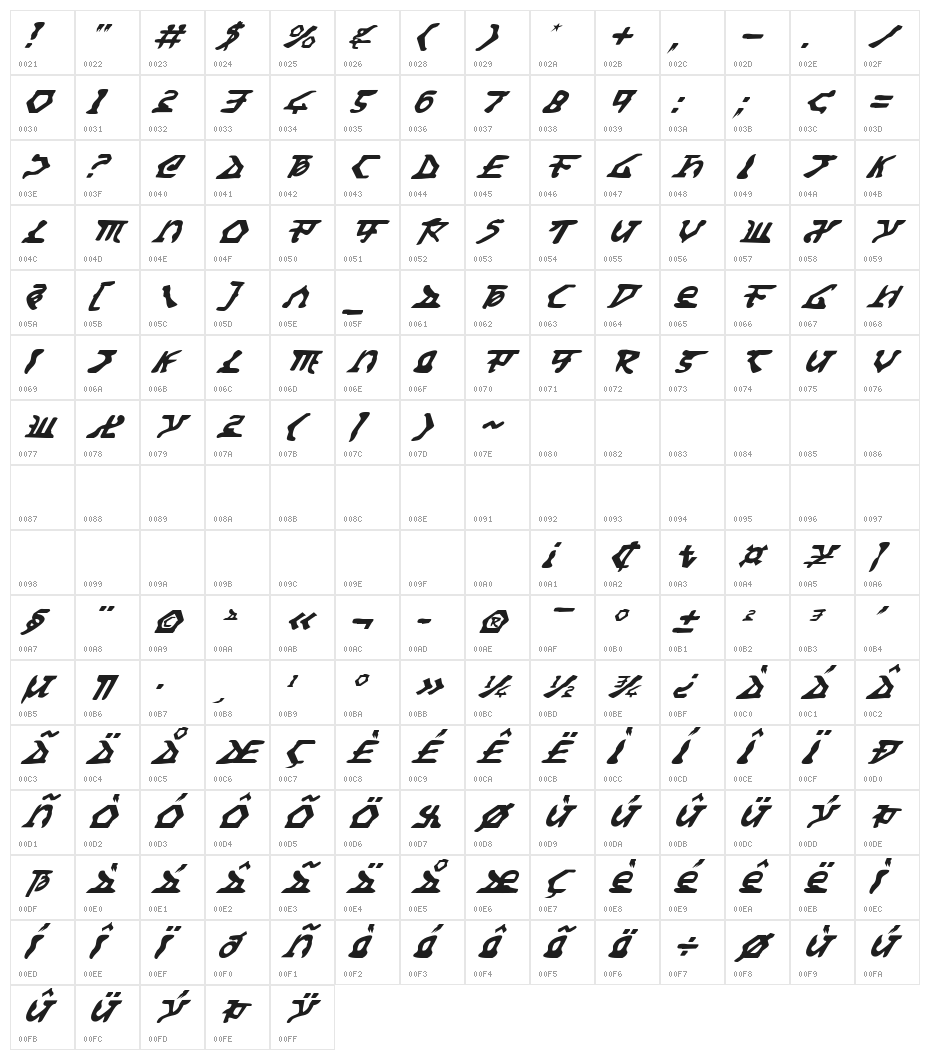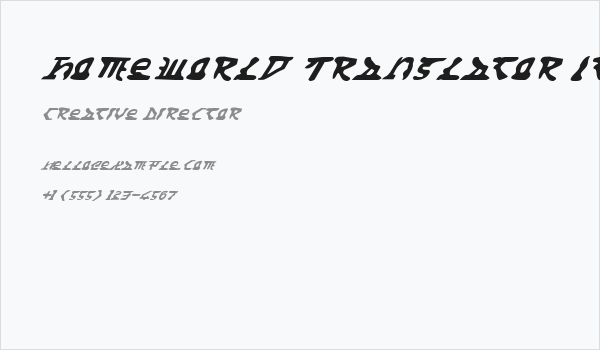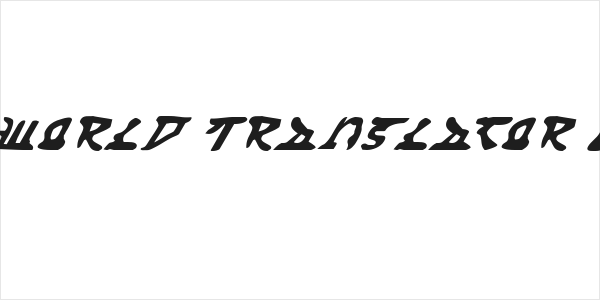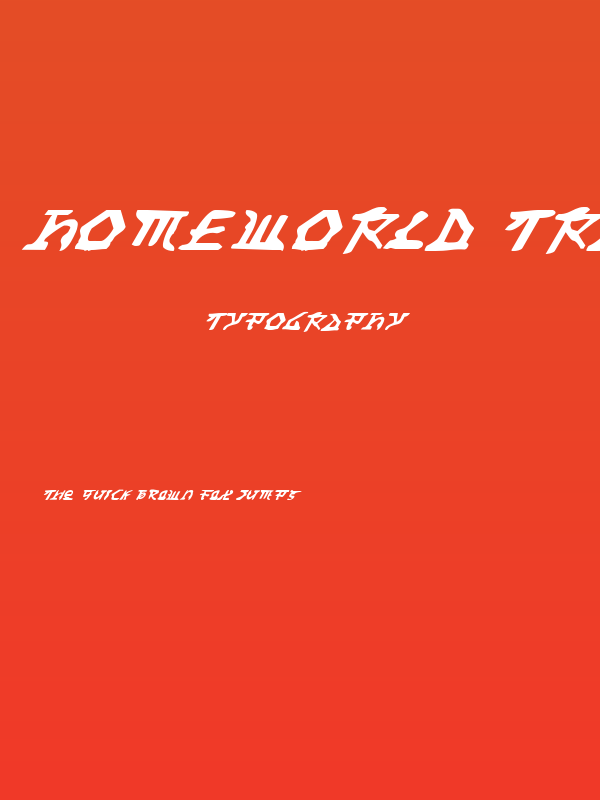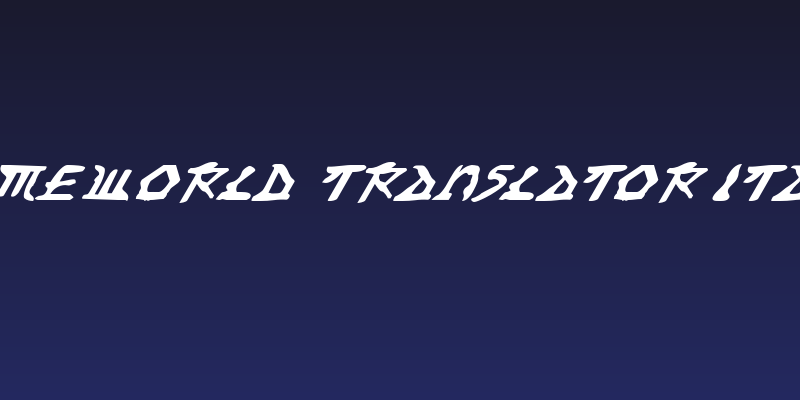
Homeworld Translator Italic Font
Homeworld Translator Italic Description
This font exhibits a futuristic and dynamic style, characterized by its sharp angles and fluid curves. The italicized form adds a sense of motion and speed, making it ideal for projects that require a modern and edgy look. The uppercase and lowercase letters maintain a consistent design, with unique, stylized forms that suggest a sense of innovation. The numerals and special characters are equally distinctive, ensuring a cohesive appearance across all text elements. The bold weight of the font enhances its visibility and impact, making it suitable for attention-grabbing headlines or logos.
| Proposed Projects | Ideal for sci-fi themed projects, tech company branding, video game titles, and futuristic posters. |